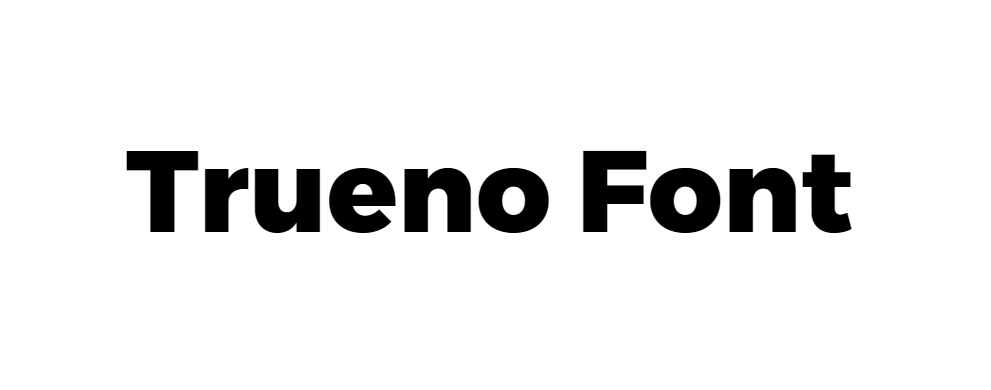
Trueno
Trueno is a sans serif font created by Julieta Ulanovsky (2015). Its clean letters skip the little "feet" (serifs) of traditional type, so it looks modern and reads well on screens. You get 12 styles in one free ZIP, and the preview above lets you test each one before you download.
- Designer: Julieta Ulanovsky
- Font styles: 12 (Regular, Bold, Bold Outline, Bold Italic, Bold Outline Italic, ExtraBold, ExtraBold Outline, ExtraBold Italic, Black, Black Outline, Black Italic and Black Outline Italic)
- Weights: Regular (400) to Black (900)
- Glyphs: 378 in the Regular style
What You Can Type With Trueno
You get every letter from A to Z in both cases and all the numbers from 0 to 9, which means Trueno can handle full sentences, dates and prices. Everyday marks like &, !, ? and @ are there too. Thanks to its accented letters, it also works for Spanish, French, German, Portuguese and Italian, not just English.
Ligatures and Smart Letters in Trueno
Where Trueno Works Best
Designers usually reach for fonts like Trueno when they're making websites, app screens and clean logos. Its lowercase letters are tall compared to the capitals, which keeps it readable at smaller sizes. It works for headings and body text alike. If the download has several weights, use a heavier one for titles and a lighter one for paragraphs. Because the family has more than one style, you can mix them in a single design for headings, subheadings and highlights.
Does Trueno support accented letters?
Yes. Trueno includes the accented letters needed for Spanish, French, German, Portuguese and Italian, so it works for more than just English.